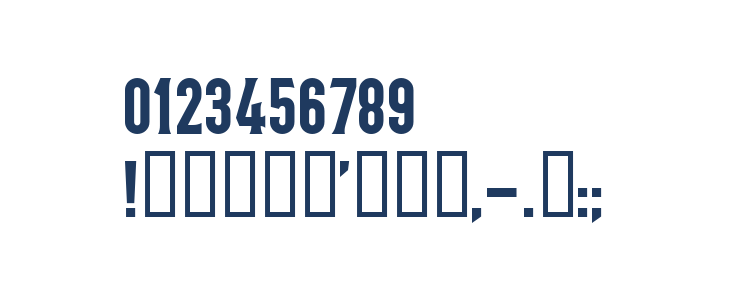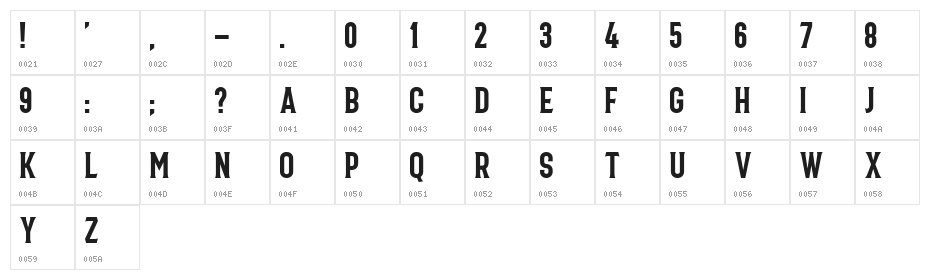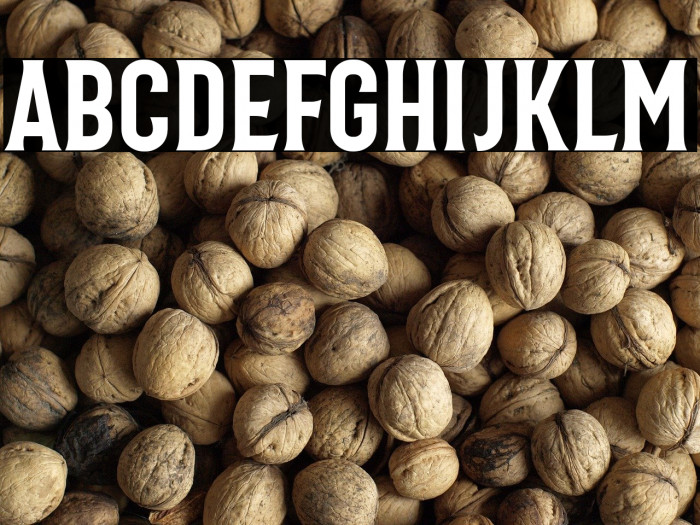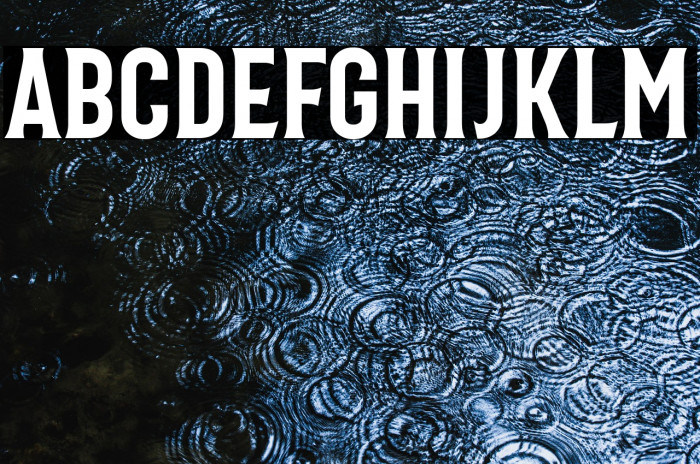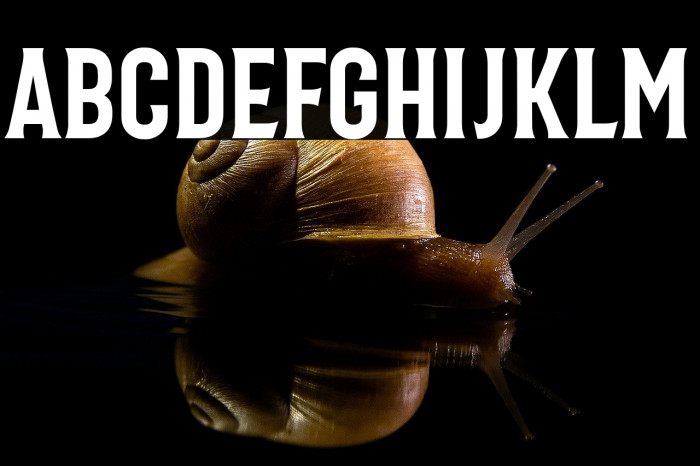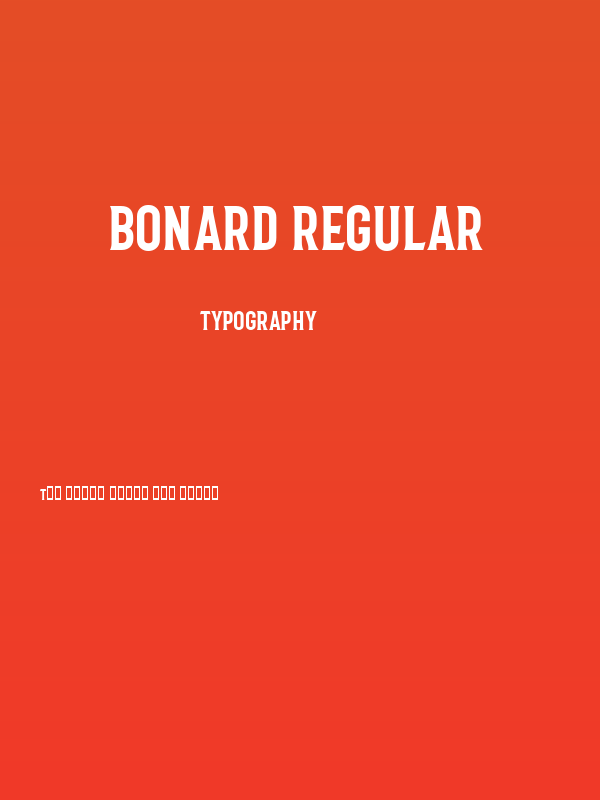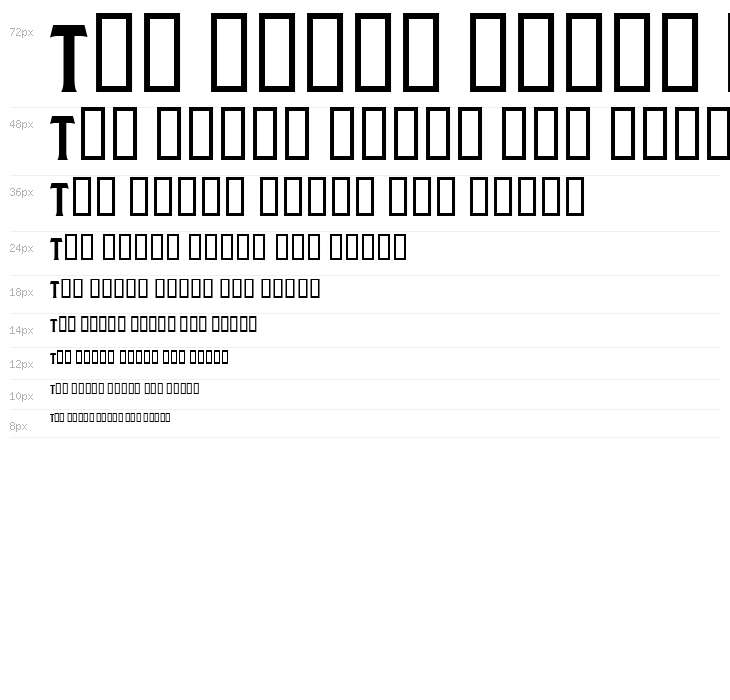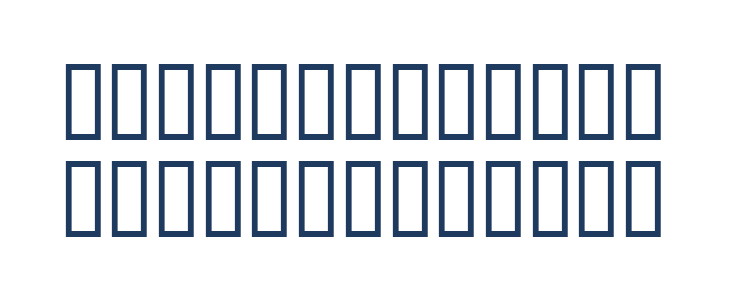
Bonard Regular Font
Bonard Regular Description
This font features a bold and impactful design with strong, thick strokes that convey a sense of authority and confidence. The characters are well-defined with a slight vintage flair, making them suitable for attention-grabbing headlines and titles. The uppercase and lowercase letters maintain a consistent style, ensuring readability and uniformity across different text sizes. The numerals are robust and align well with the overall aesthetic, while the special characters complement the font's bold nature. The design is versatile, making it ideal for both print and digital media.